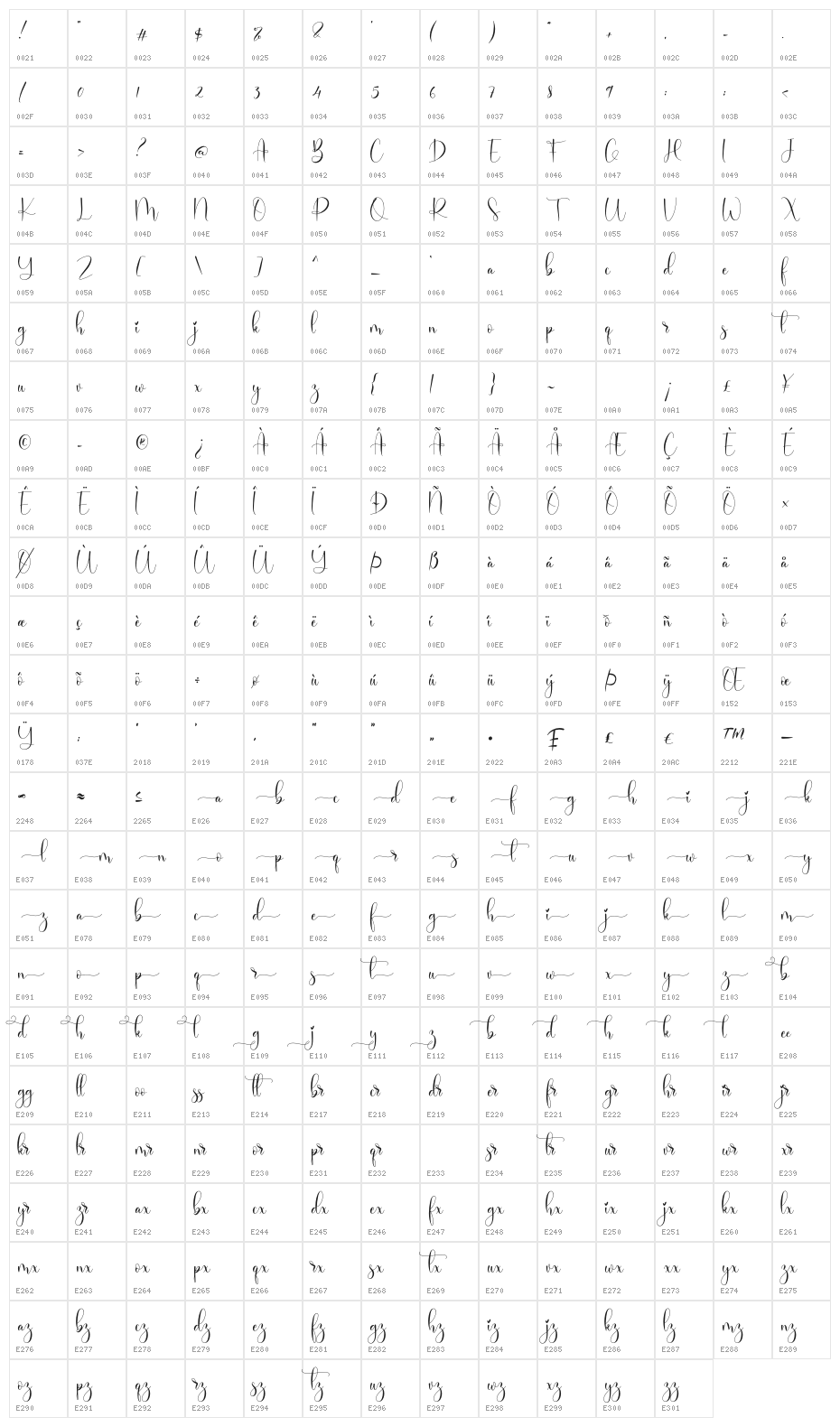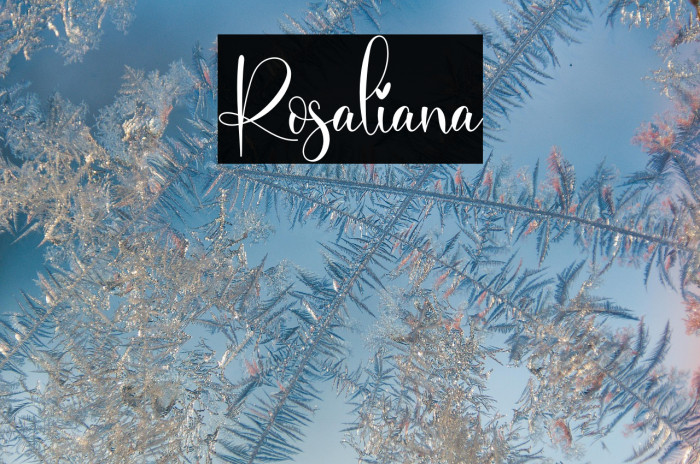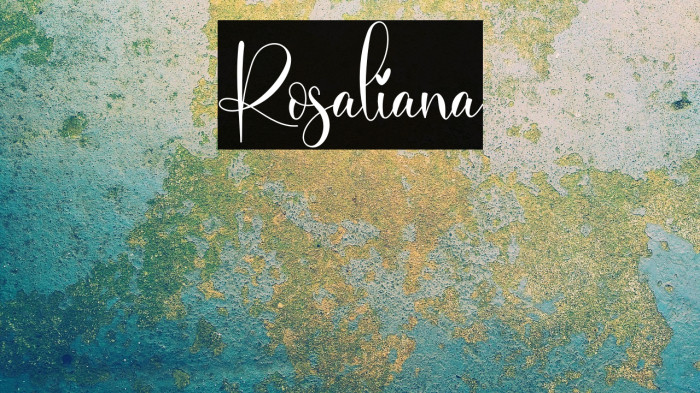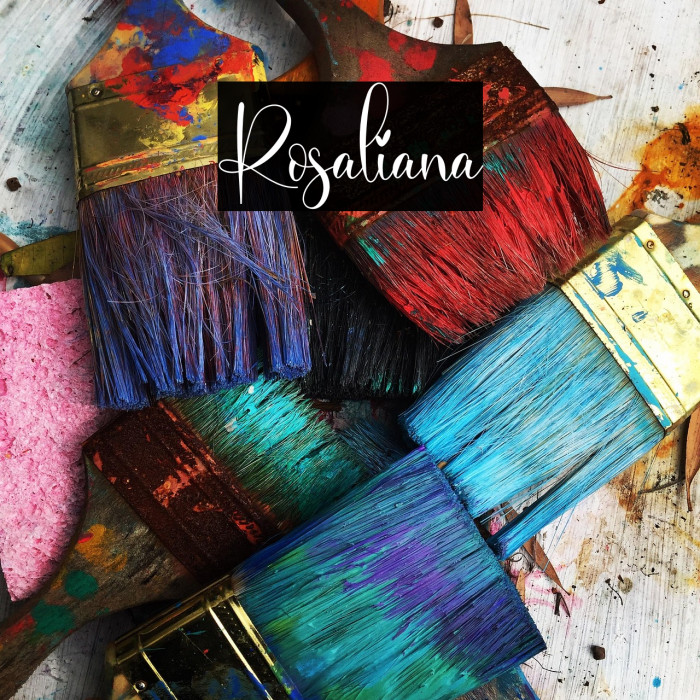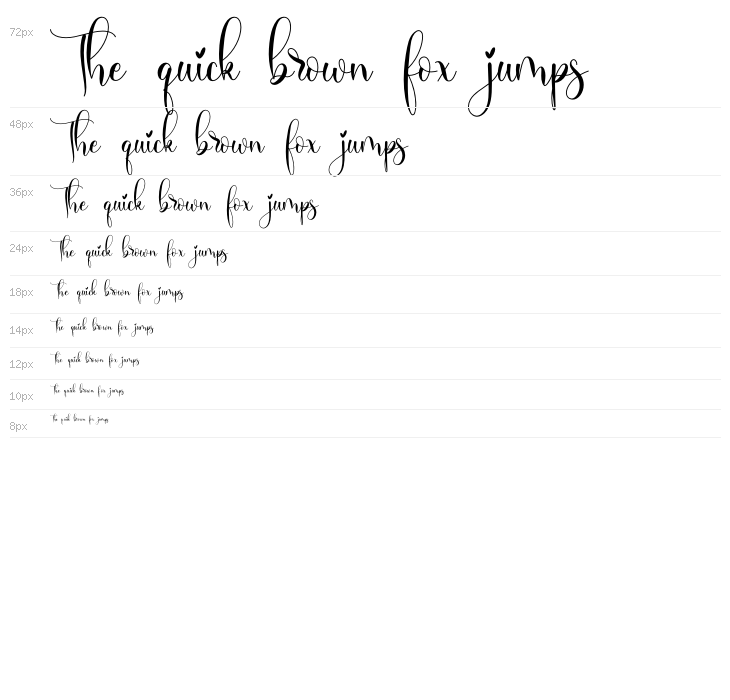
Rosaliana Font
Rosaliana Description
This font exudes elegance and sophistication with its flowing, cursive script style. The uppercase letters are tall and slender, featuring intricate loops and swirls that add a touch of whimsy. The lowercase letters maintain a consistent style, with some letters like 'g' and 'y' having extended descenders that enhance the font's graceful appearance. The numerals are clear and maintain the decorative style, making them suitable for artistic uses. Special characters are thoughtfully designed to match the overall aesthetic, ensuring a cohesive look across all text elements. This font is perfect for projects that require a personal, handwritten touch, such as invitations, greeting cards, or branding materials.
| Proposed Projects | Ideal for wedding invitations, greeting cards, branding, and artistic projects. |